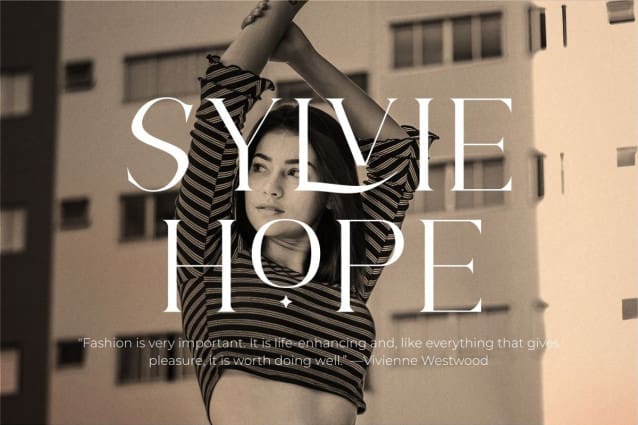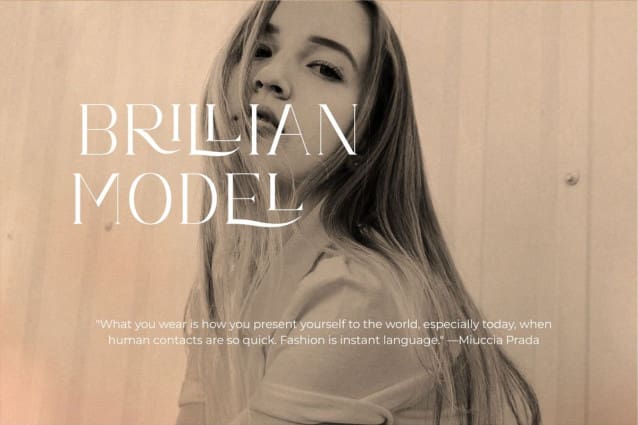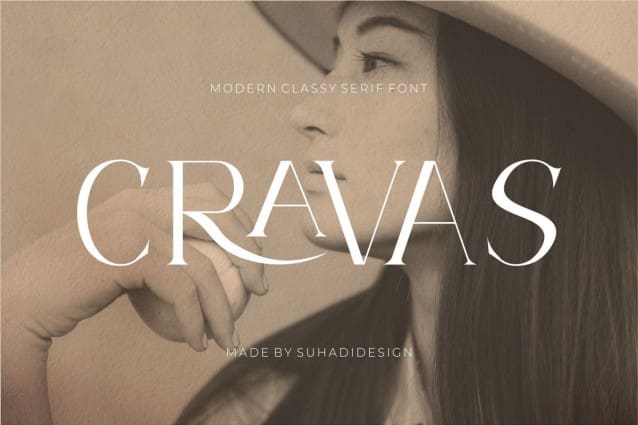
Cravas Font
Cravas Font is a serif font with many ligatures very beautiful and popular, comes in a modern style to become a market favourite. We keep this font looking elegant, classy, ​​easy to read, stylish, attractive and easy to use. Cravas Font is a great choice for beauty brands, magazines, newspapers, books, brand names, branding, brands, quotes, album covers and other projects. Cravasfont is here to elevate the quality of your designs to new heights.